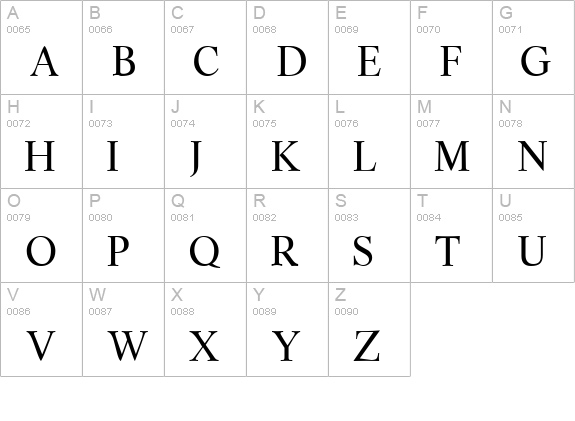
ResourceSSK Font Details
ResourceSSK is a stunning font that effortlessly combines elegance with modernity. Its clean lines and stylish curves make it the perfect choice for a wide range of design projects, from logos and branding to invitations and social media graphics. This versatile font offers a plethora of possibilities, allowing you to create eye-catching and professional designs with ease. Its bold yet refined aesthetic adds a touch of sophistication to any project, making it a popular choice among designers and creatives alike. What makes ResourceSSK even more appealing is that it is available for free. Yes, you read that right! This exceptional font can be freely downloaded at FontsMarket.com, making it accessible to everyone. Whether you're a professional designer or just a hobbyist, this font is a must-have in your toolkit. With ResourceSSK, you can unleash your creativity and bring your ideas to life. Its wide range of weights and styles provides endless design possibilities, allowing you to create unique and memorable pieces. From bold headlines to delicate script, this font has it all. So why wait? Head over to FontsMarket.com and download ResourceSSK today. Discover why this font has become a favorite among designers worldwide. Unleash your creativity and let ResourceSSK take your designs to new heights. Get ready to impress with this exceptional font that is not only visually stunning but also freely available for you to enjoy.